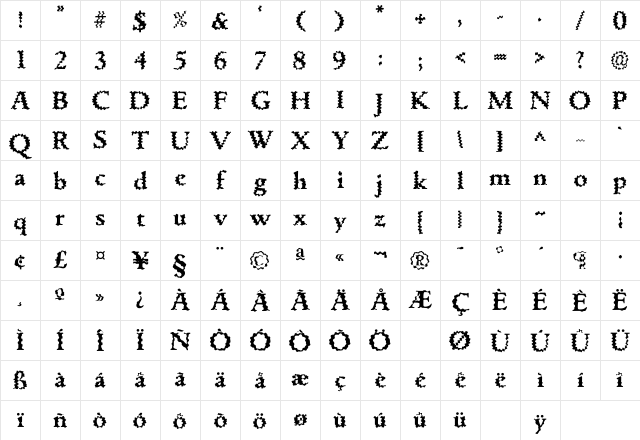
Meltdown SF is a composed and adaptable typeface that performs quietly and consistently across a wide range of design contexts. Its bold stroke weight gives it real presence on the page.